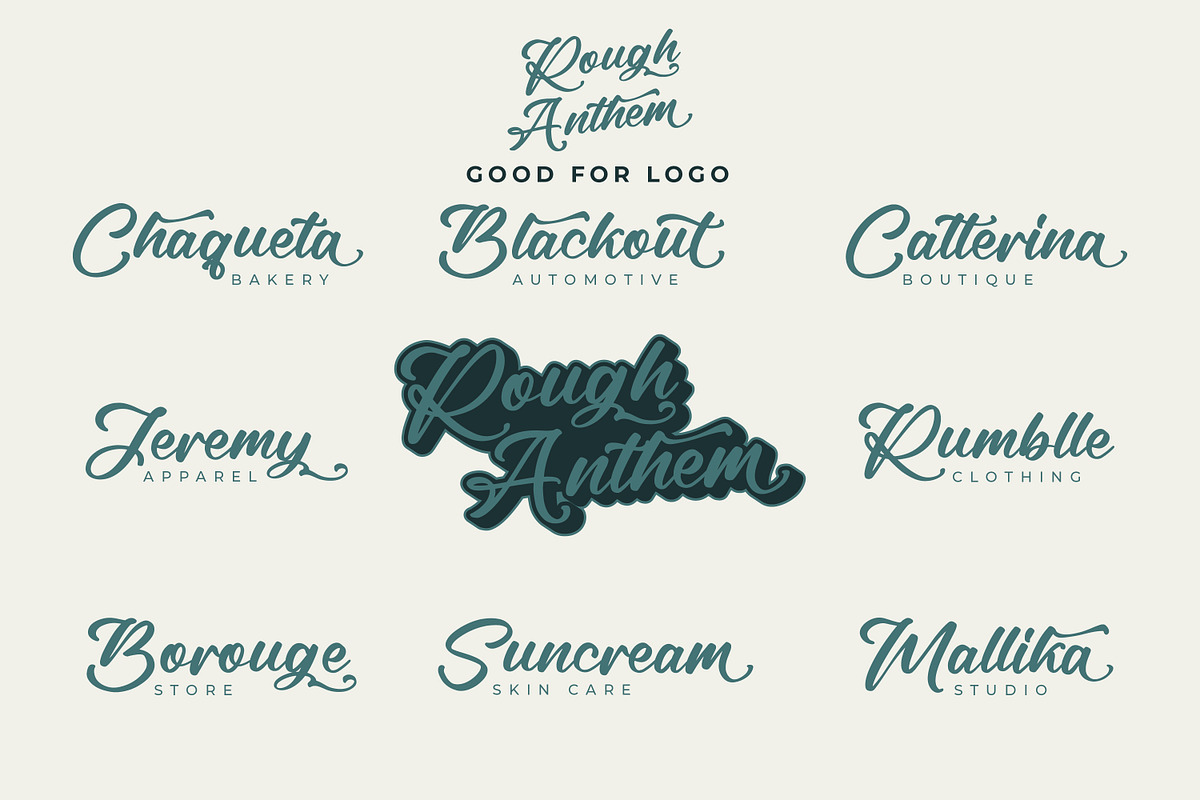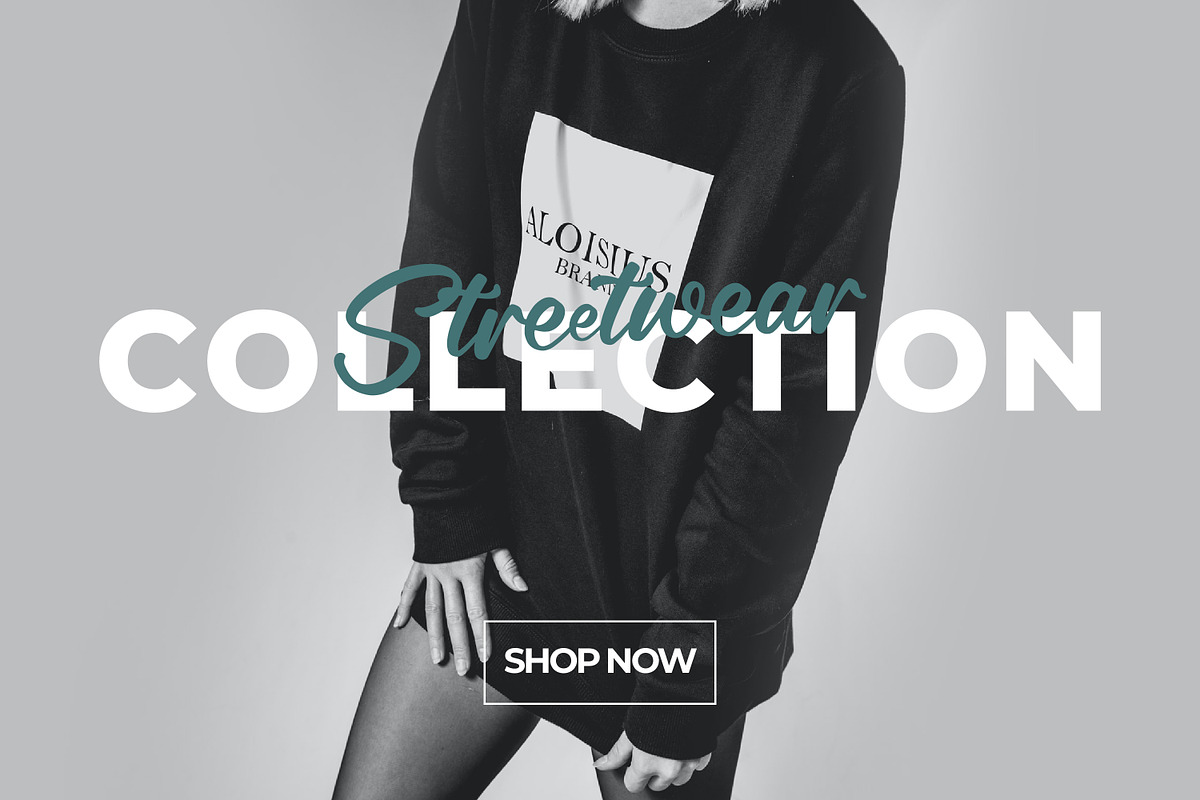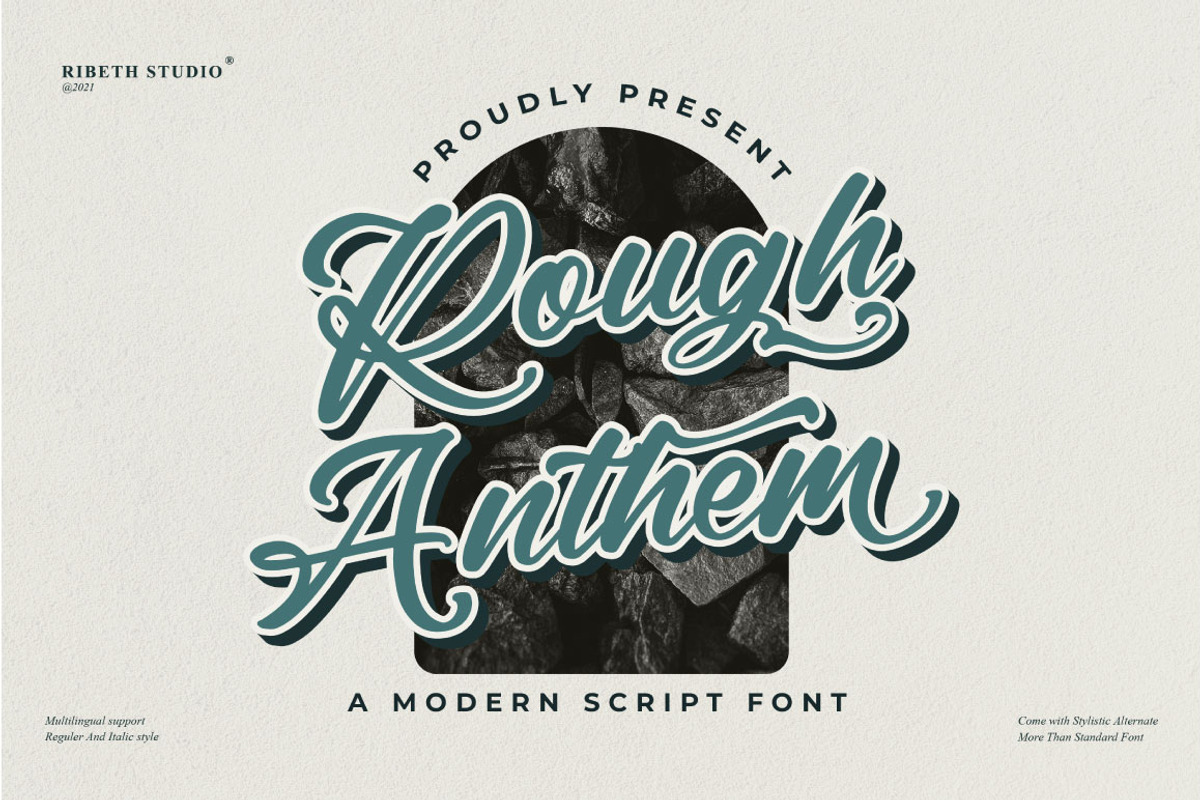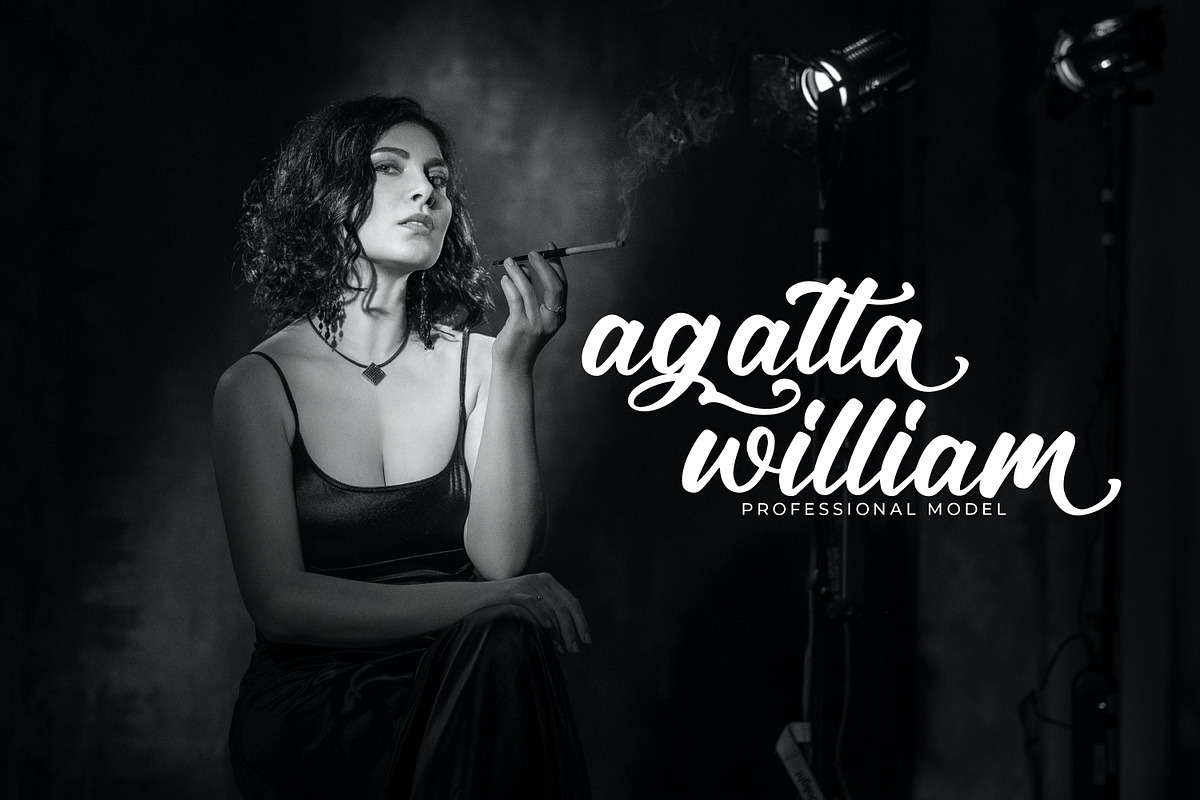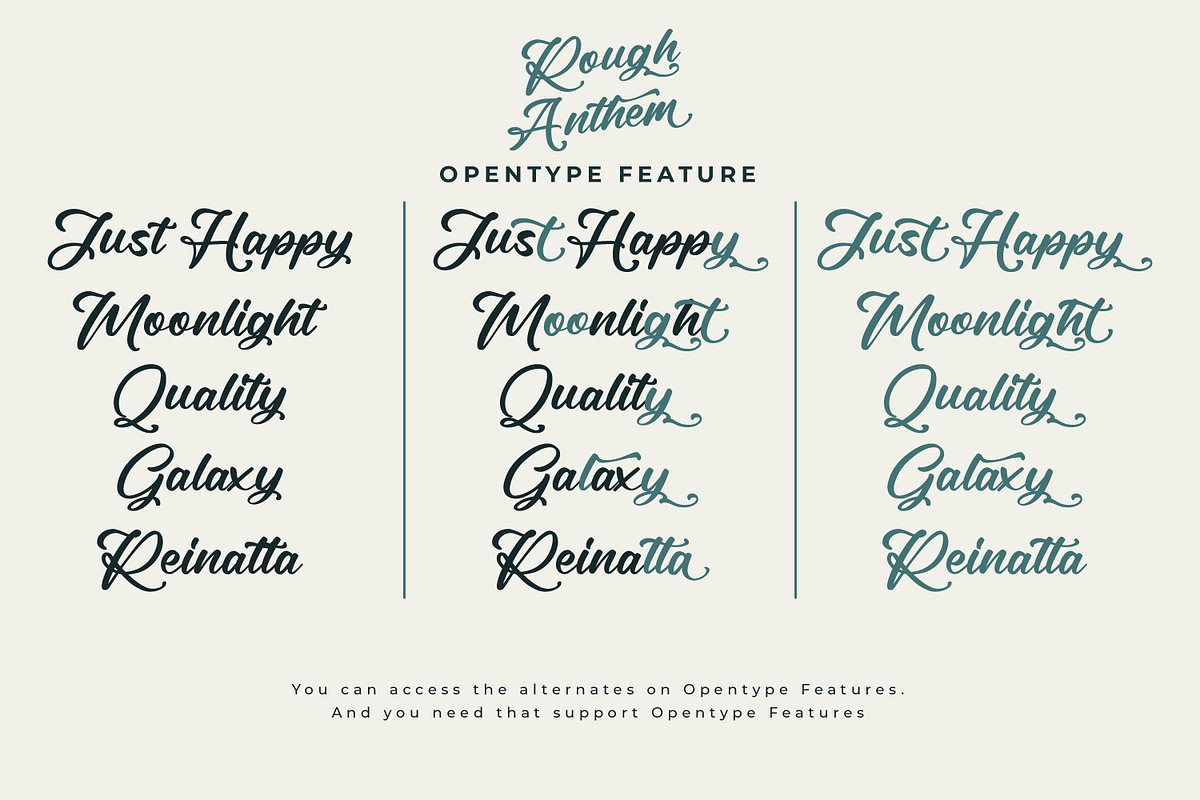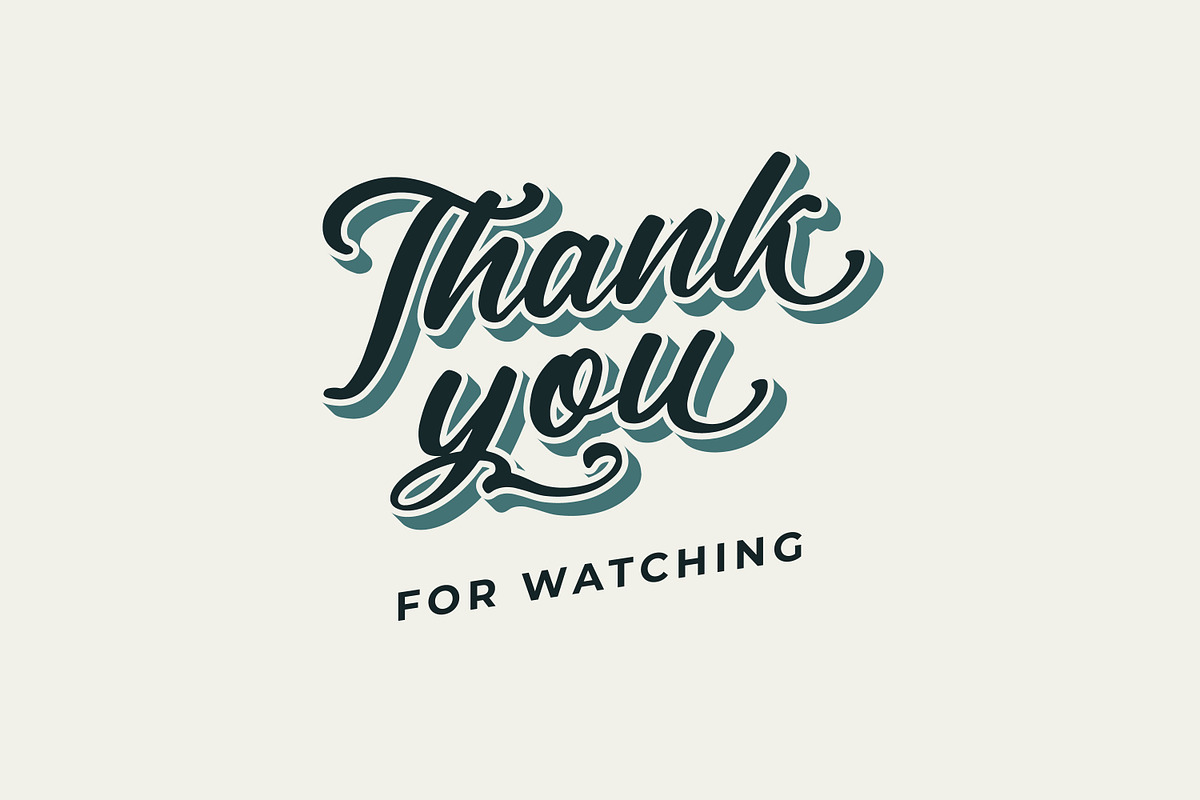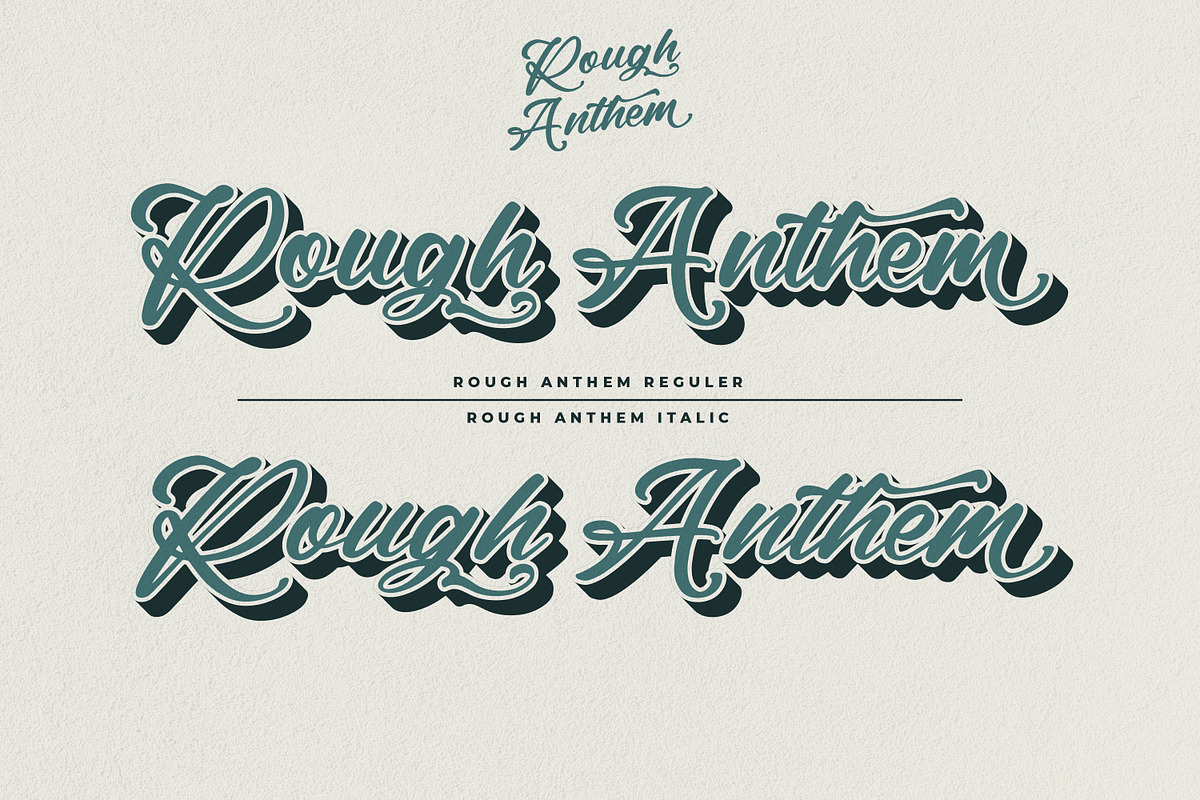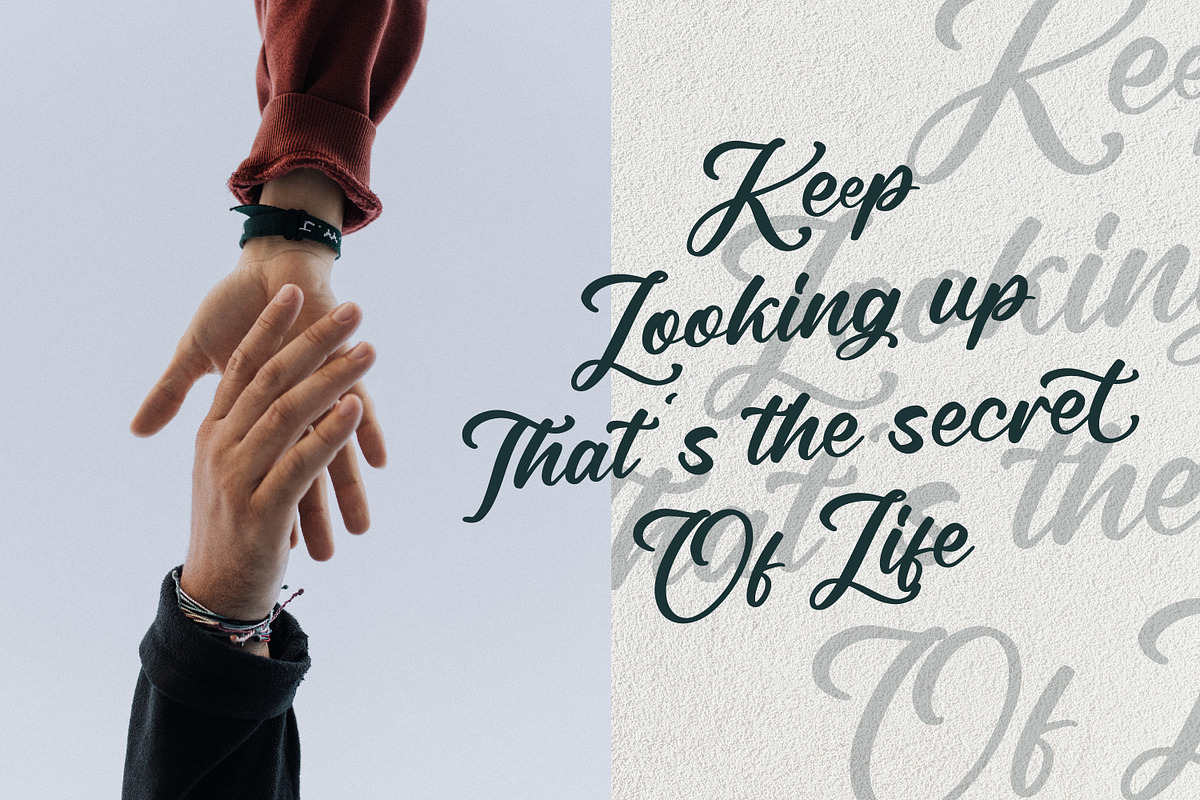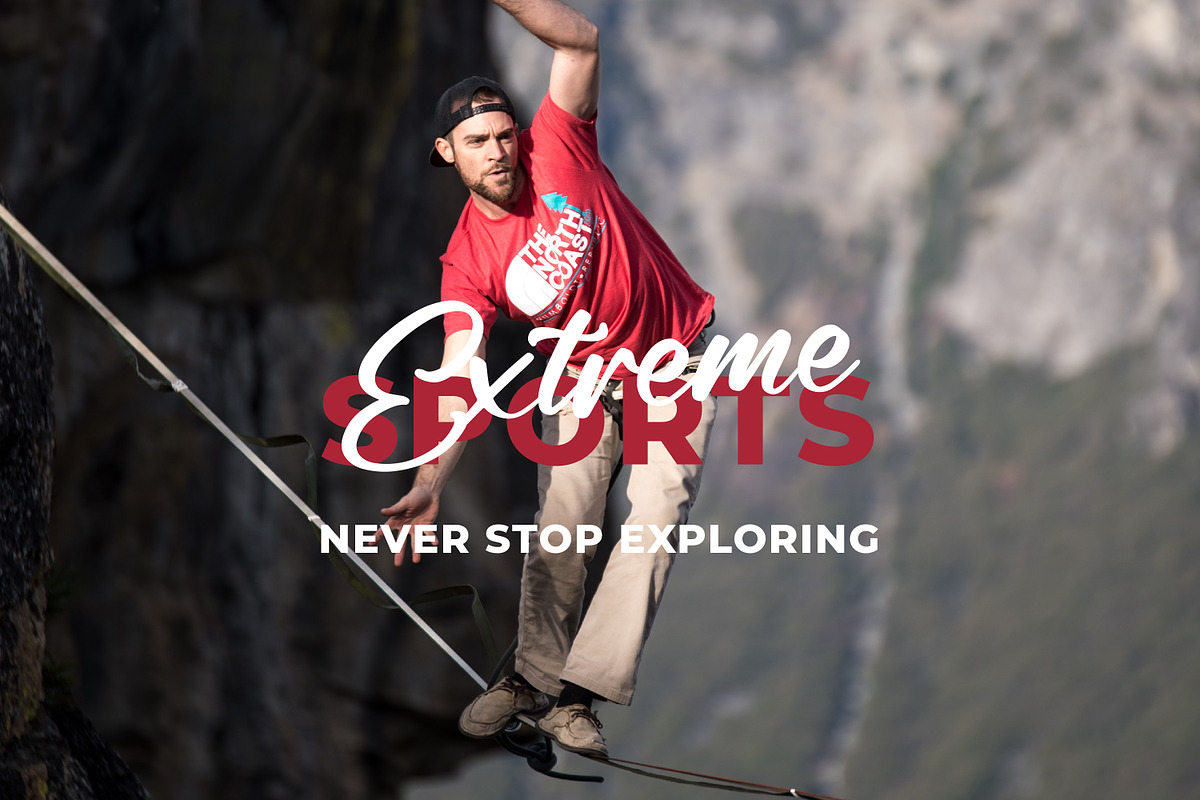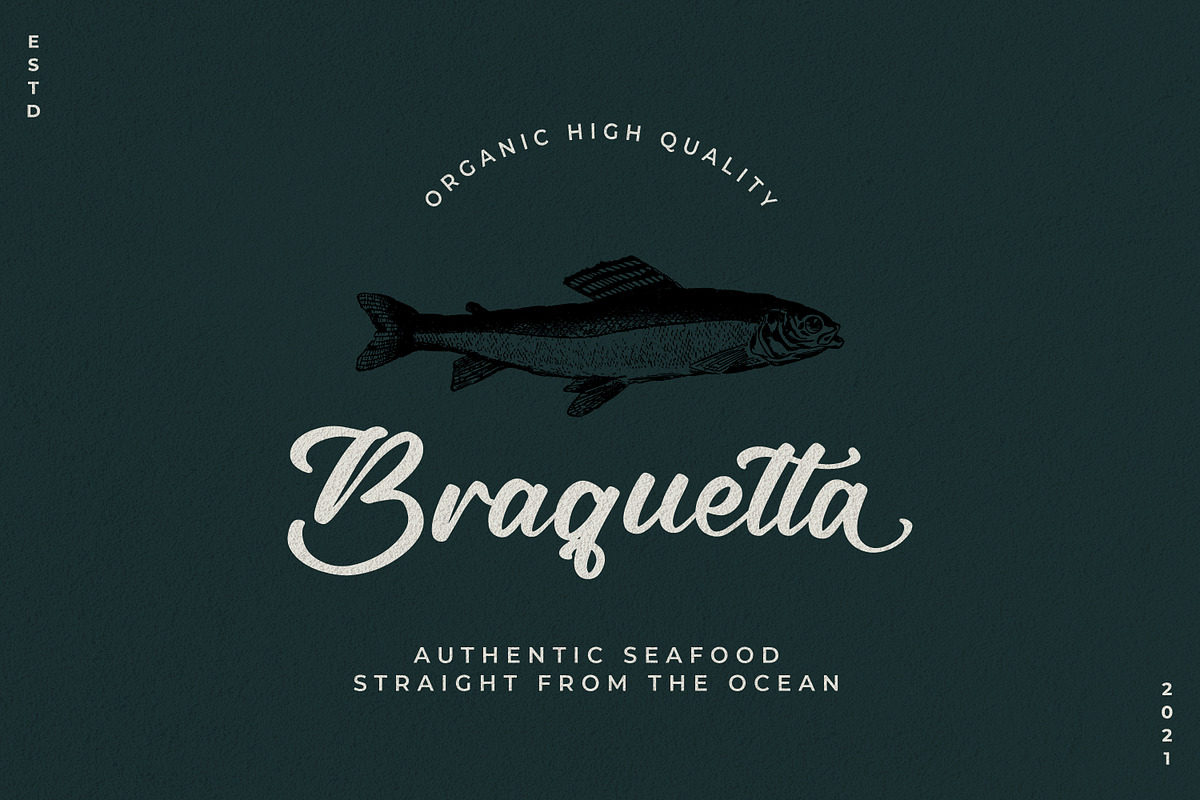
Rough Anthem - Modern Script Font
Rough Anthem is a stylish modern script font with 2 styles: Regular, Italic and includes a full set of uppercase and lowercase letters, multilingual symbols, numerals, punctuation, alternates, swash, and ligatures. The font is perfect for branding, wedding invites, and cards, Christmas card, branding, logos, product packaging, invitation, quotes, t-shirt, label posters, this is perfect for branding, logos, invitation, and more.
Rough Anthem Features :
- Multilanguage